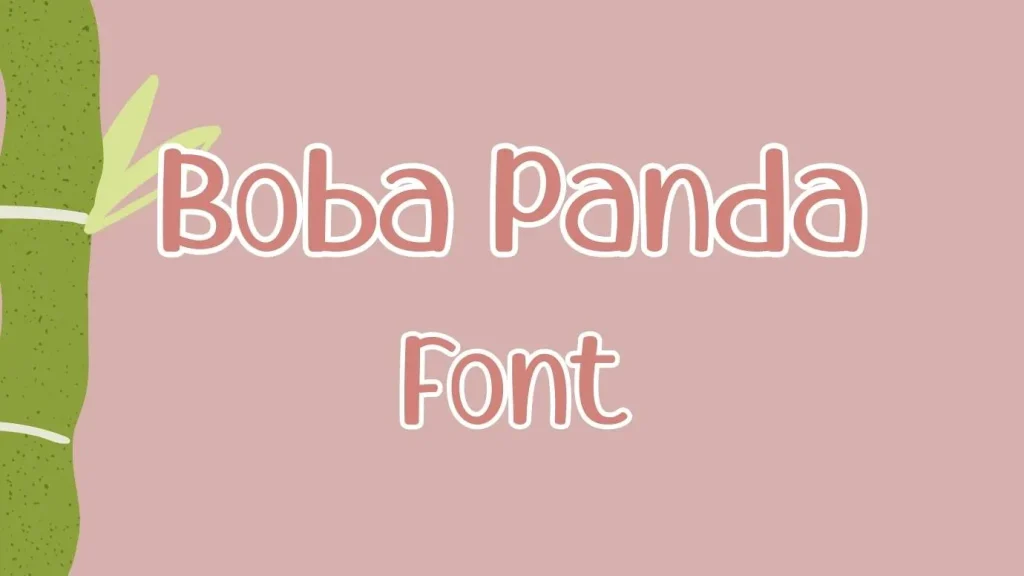
Boba Panda Font is a fancy typeface that is a great choice for those who are searching for a classic textual style. It is extremely smooth and clear, indeed in tiny sizes.
This typeface moreover has both lowercase characters and capitalized characters, as well as a huge number of ligatures. This typeface helps creators when designing unique fields. You can use this typeface to create remarkable and eye-catching designs. It is also appropriate for the creation of long and short paragraphs. Also appropriate for artwork and banner design.
The design can be used to create interesting covers and websites. You can make as well as branding projects, houseware designs, packaging, or even simply as attractive text to the unique background images.
Using Boba Panda Font
It is perfect for logos, branding projects, homeware packaging, and all kinds of other lovely ventures that require an attractive look, this typeface has trendy glyphs and characters. The typeface will give your designs more uniqueness because of its lovely features.
Besides Websites, Logos, Placards, Captions, and any other project requiring liveliness, you can use this font. Printing schemes such as welcoming cards, commercial postcards, and more.
Adobe Photoshop and Canva software packages allow you to utilize this typeface for movie logos, drama logos, and logos for websites. This stunning typeface is often used by graphic designers for generating alternate vintage designs.
The typeface’s popularity is increased by the originators who utilize it. This typeface can be used for a variety of projects, including book covers, graphics cards, and artwork. You can create advertisements and social media posts using this typeface.